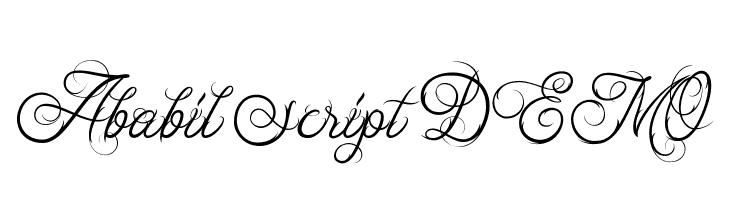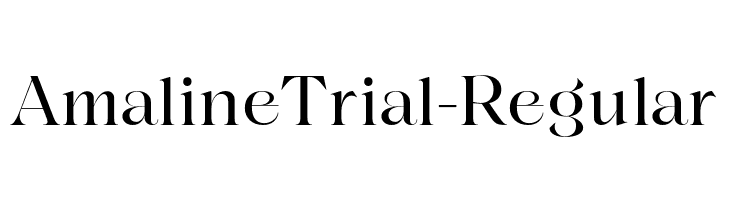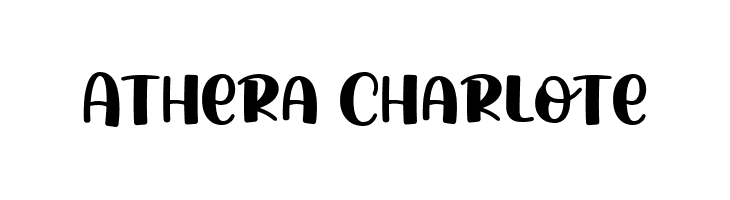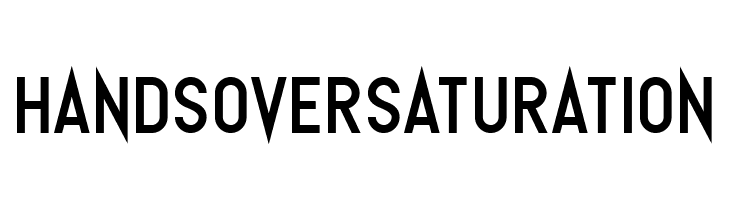
A classic serif font with high contrast and elegant, sharp serifs.
( Fonts by Richard Woods )
A bold, playful handwritten font with a casual and friendly style.
( Fonts by www.aenigmafonts.com )
A bold, playful font with a thick outline and bubble-like appearance.
( Fonts by Graham Meade - GemFonts )
A decorative serif font with a classic yet whimsical style, featuring sharp serifs and elegant curves.
( Fonts by Zarma Type Foundry )
A bold, playful font with rounded edges and a whimsical, handwritten style.
( Fonts by Nirmala Creative )
A bold, playful font with horizontal stripes and rounded edges.
A bold, geometric font with sharp angles and a modern aesthetic.
( Fonts by Manuel Viergutz - Typo Graphic Design - www.typographicdesign.de )
A bold, pixelated font with a retro digital aesthetic.